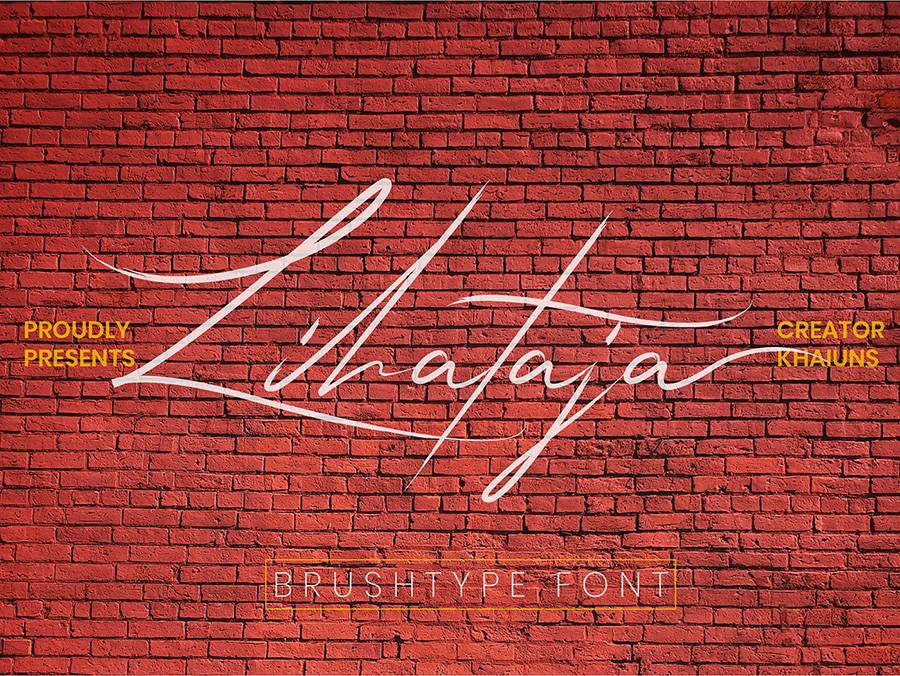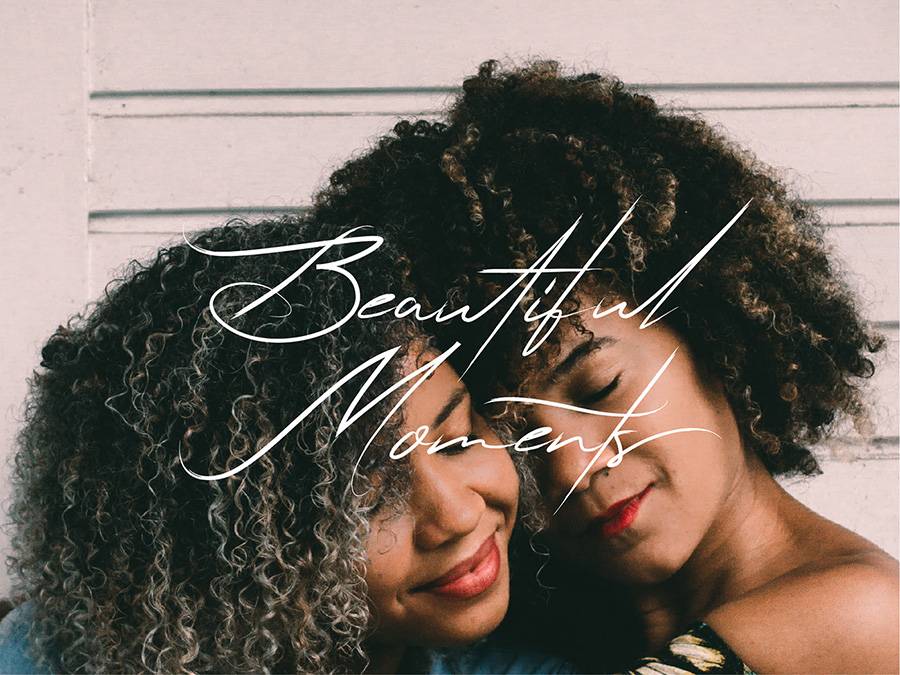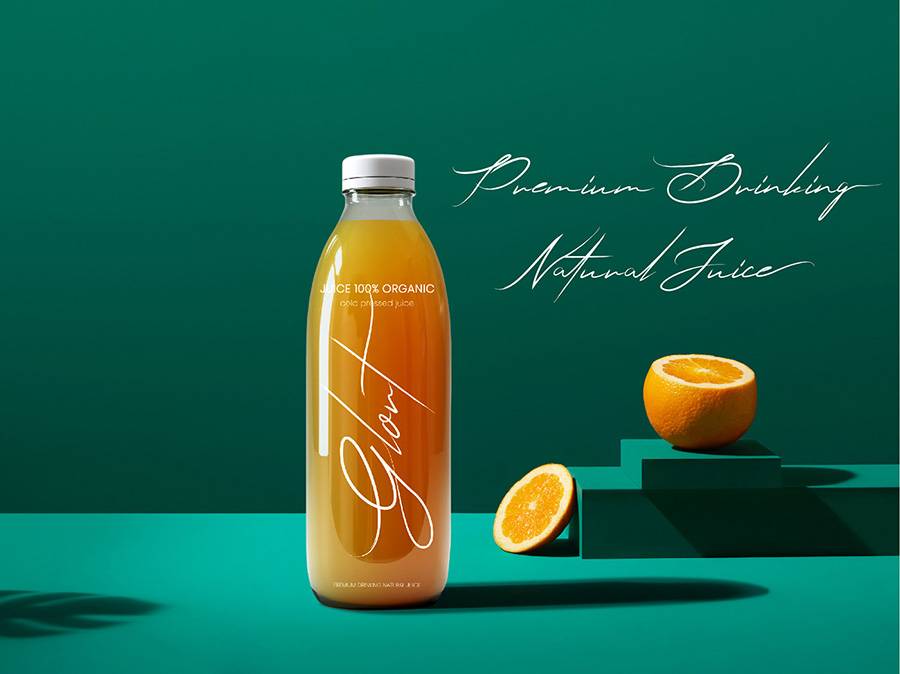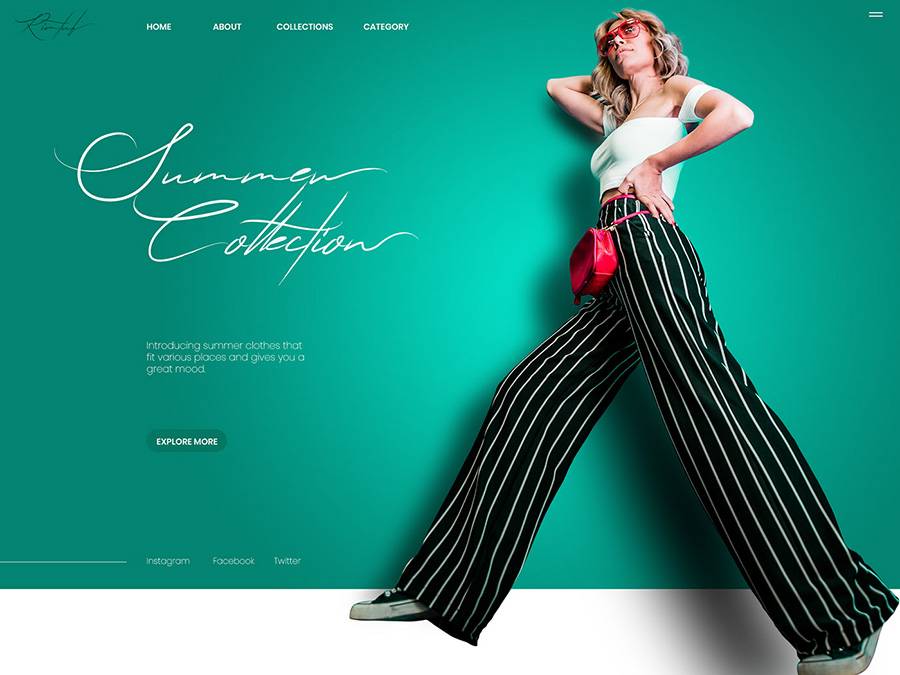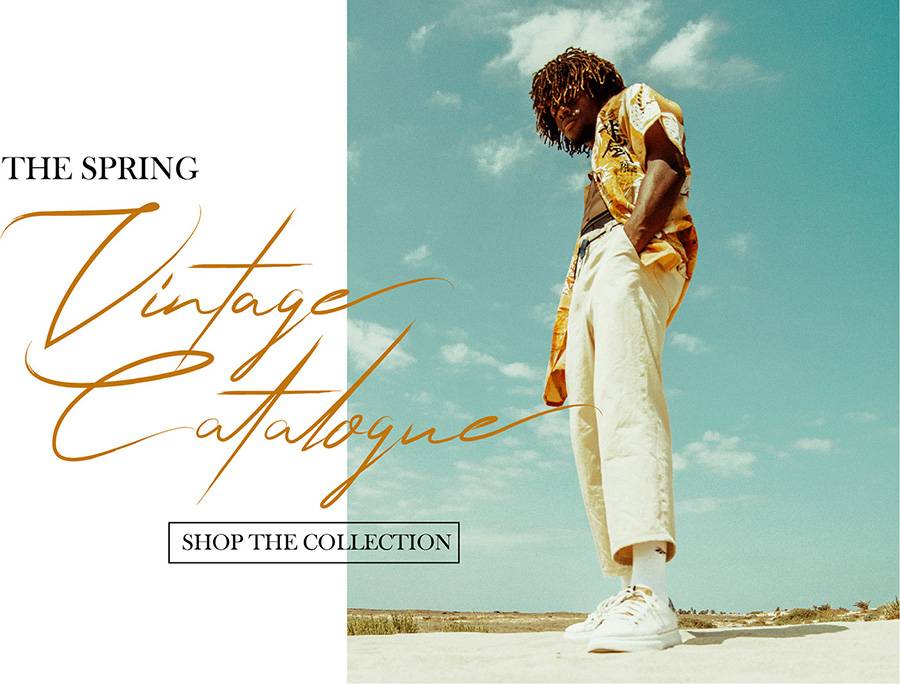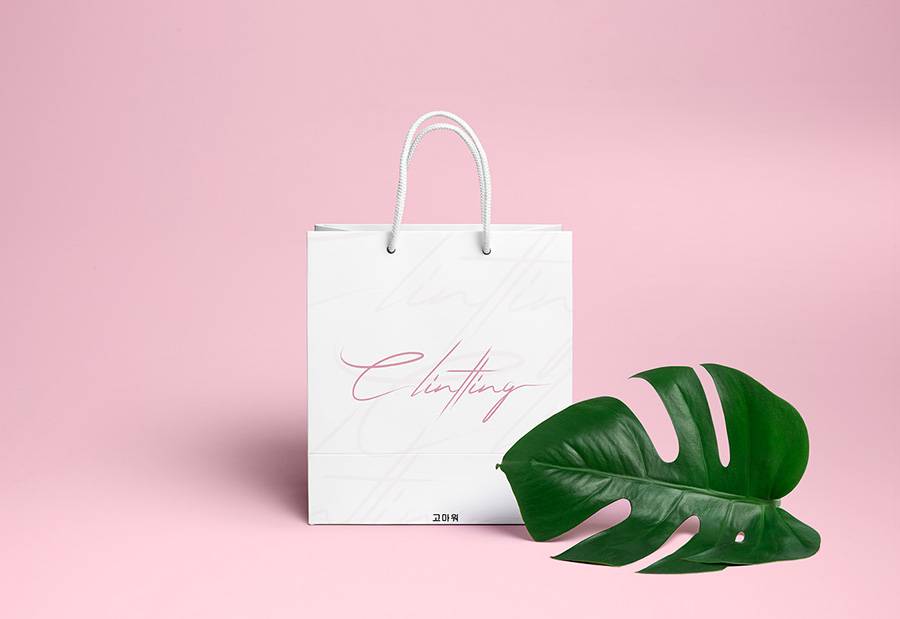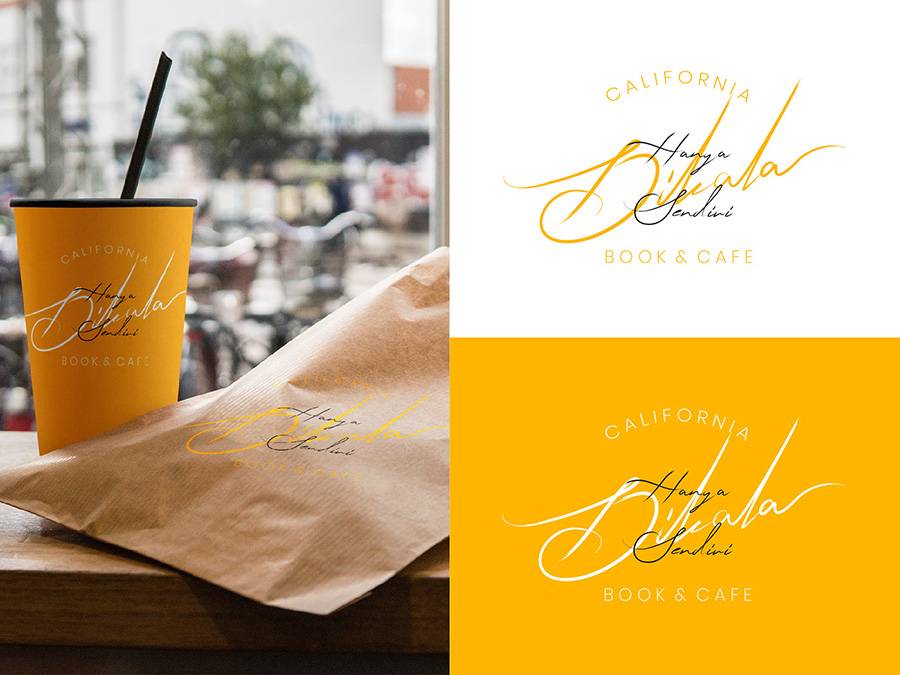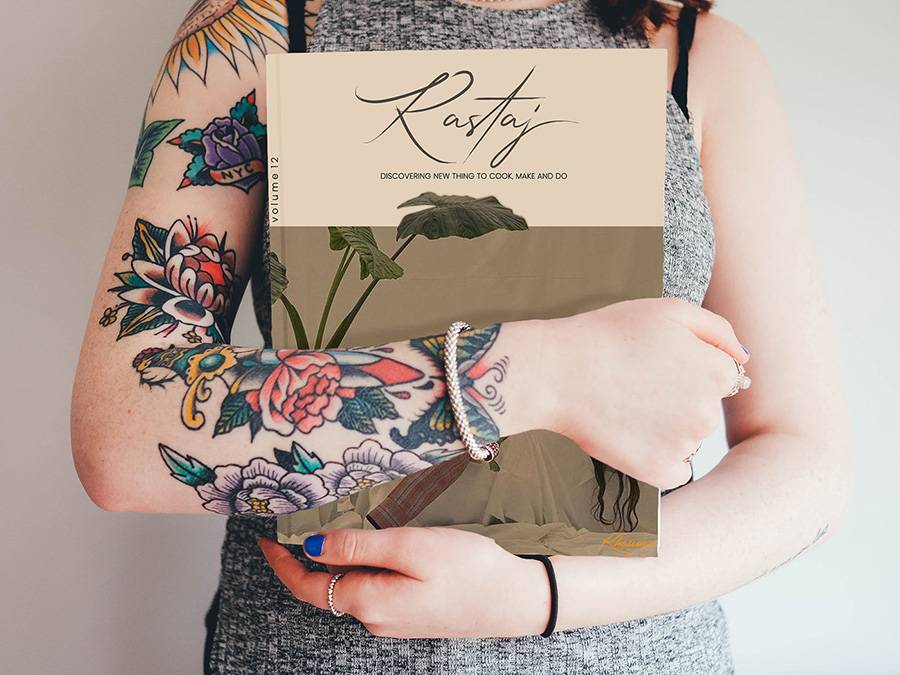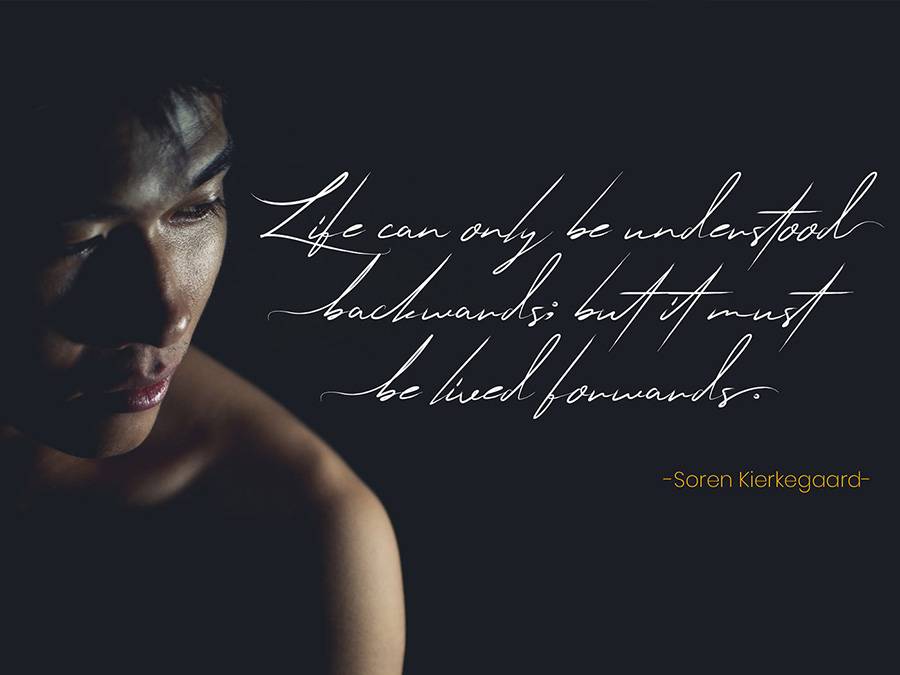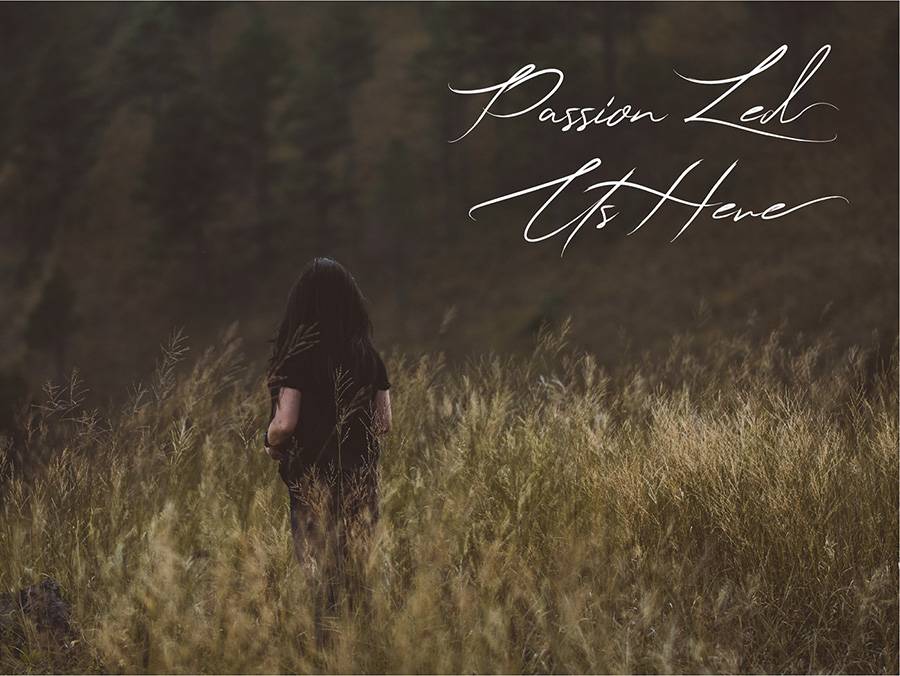
Lihataja Brush is an elegant, delicate script font that mimics fine brush calligraphy with its flowing, airy strokes and high contrast between thick and thin lines. Its slender, handwritten style gives it a sophisticated and artistic feel, perfect for luxury branding, invitations, or creative projects that need a graceful and personal touch. This font works best in display uses like logos and headlines where its intricate details can truly shine.
Lihataja Brush Script Font